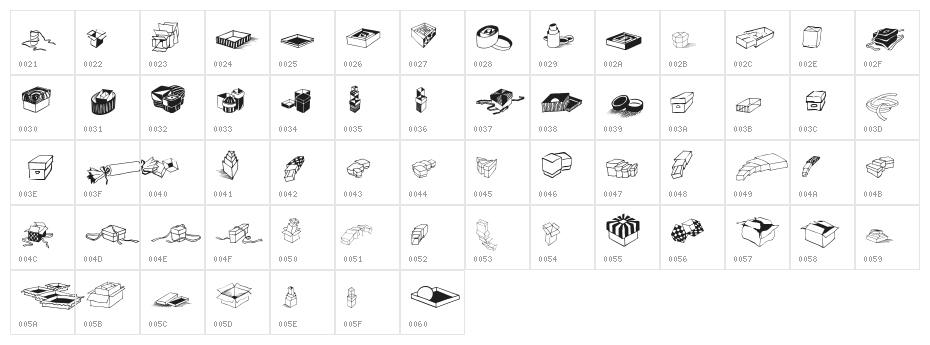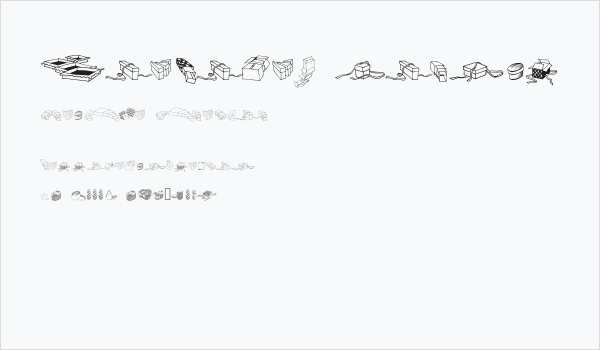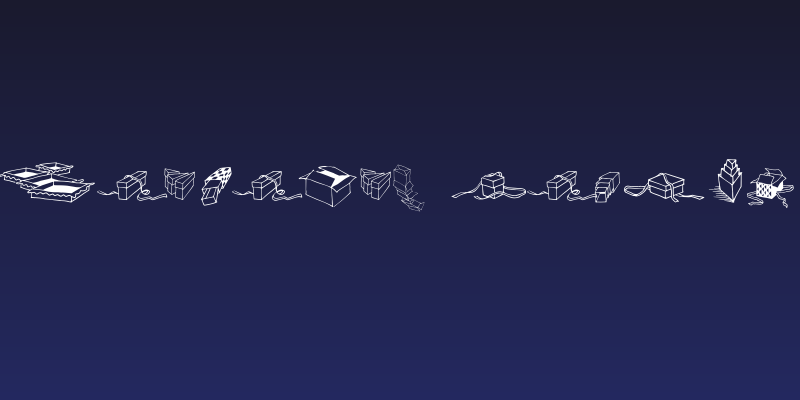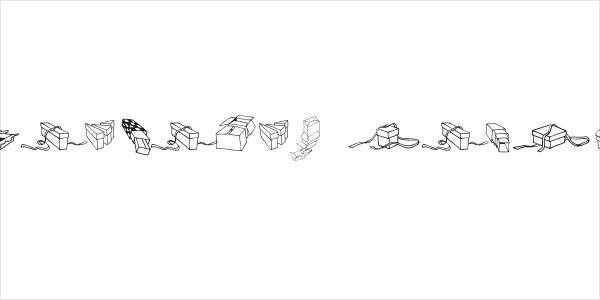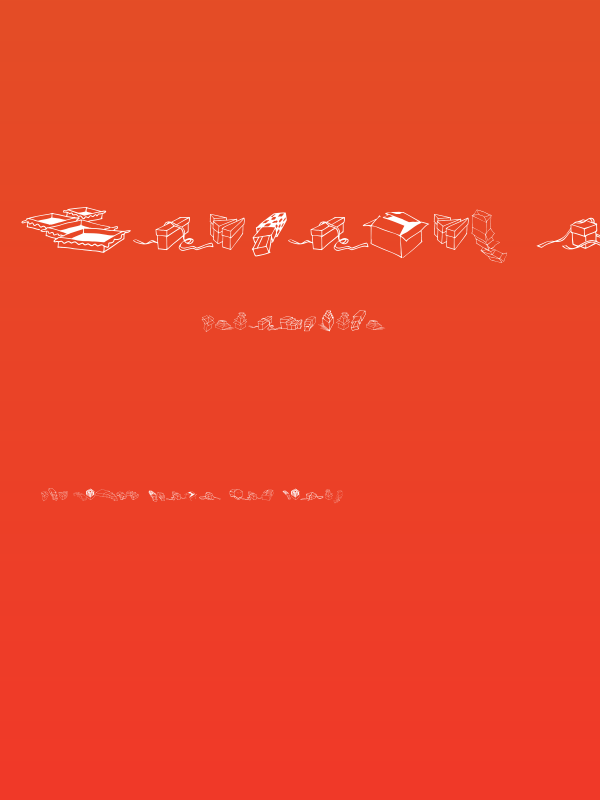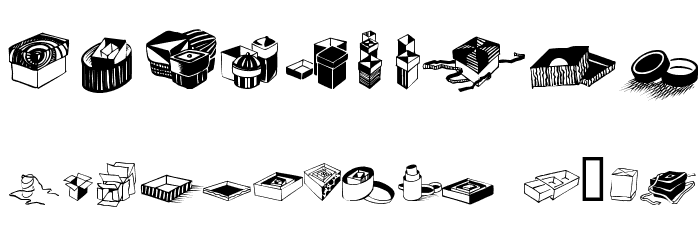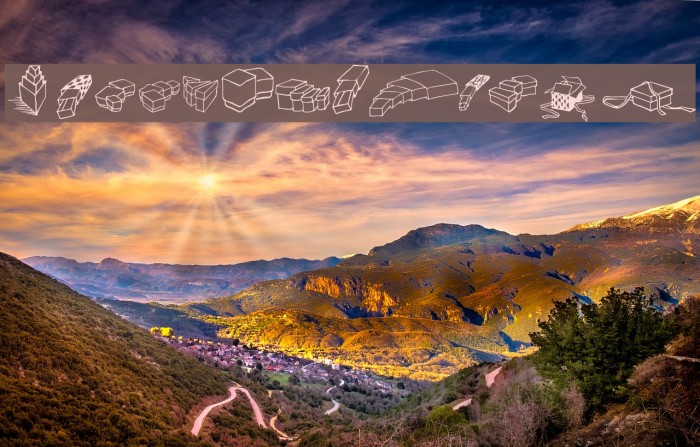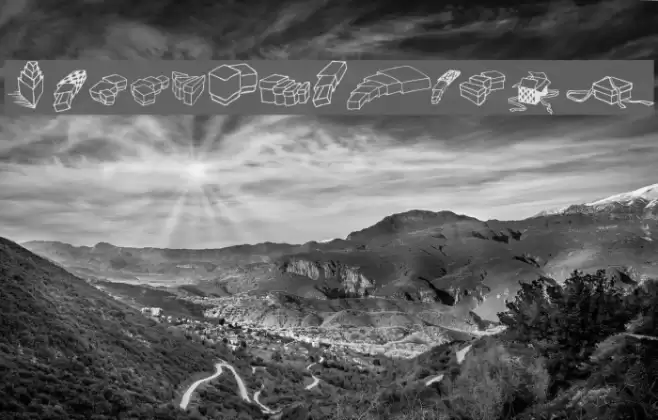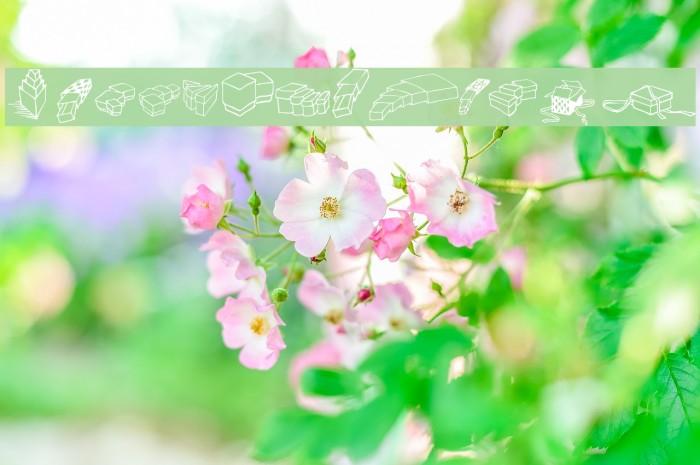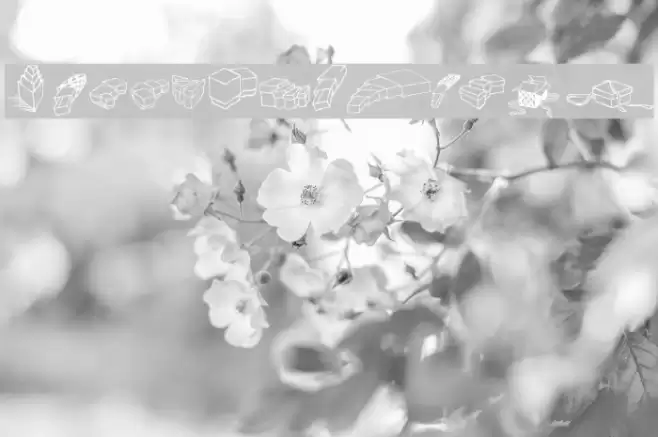
Zoeboxes Normal Font
Zoeboxes Normal Description
This font features a unique and playful design, where each character is represented as a three-dimensional box or package. The letters and numbers are creatively depicted with various box shapes, some with ribbons or patterns, adding a whimsical and decorative touch. The style is highly illustrative and artistic, making it stand out for its imaginative approach. The characters are detailed, with varying line thicknesses that give a hand-drawn feel. This font is not suitable for body text but excels in creative and artistic projects where a distinctive look is desired.
| Use Case | Logos, Headlines, Artistic projects |
| Proposed Projects | Ideal for creative projects such as children's book covers, playful branding, event invitations, and artistic posters. |